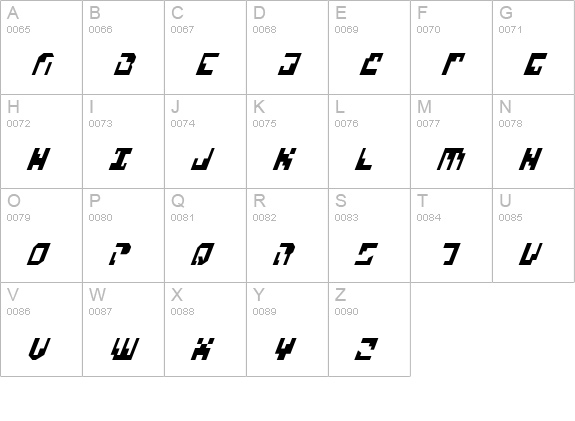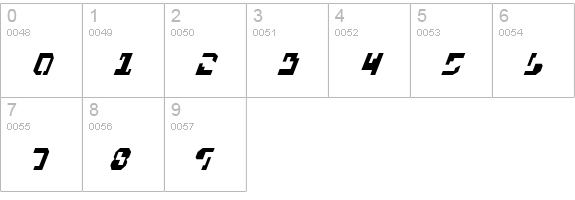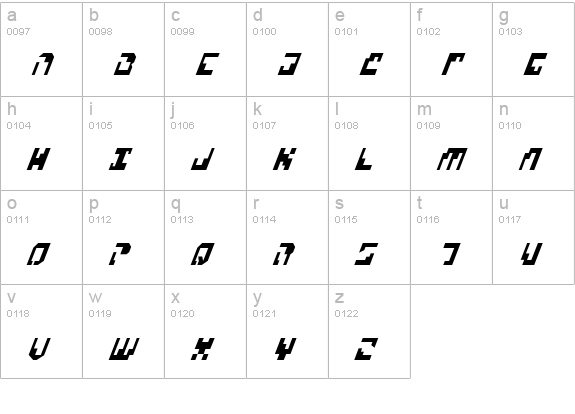
Xenophobia CondItal font is a sleek and modern typeface that exudes sophistication and style. With its elegant condensed letterforms and unique design elements, this font is perfect for adding a touch of class to any project. The sharp angles and clean lines of Xenophobia CondItal make it ideal for use in headings, logos, and other design applications where a contemporary look is desired. Best of all, Xenophobia CondItal font is available for free download at FontsMarket.com. This means you can easily access this high-quality typeface without any cost, making it a great choice for designers and creatives looking to elevate their work without breaking the bank. Don't miss out on the opportunity to add Xenophobia CondItal to your font collection today!